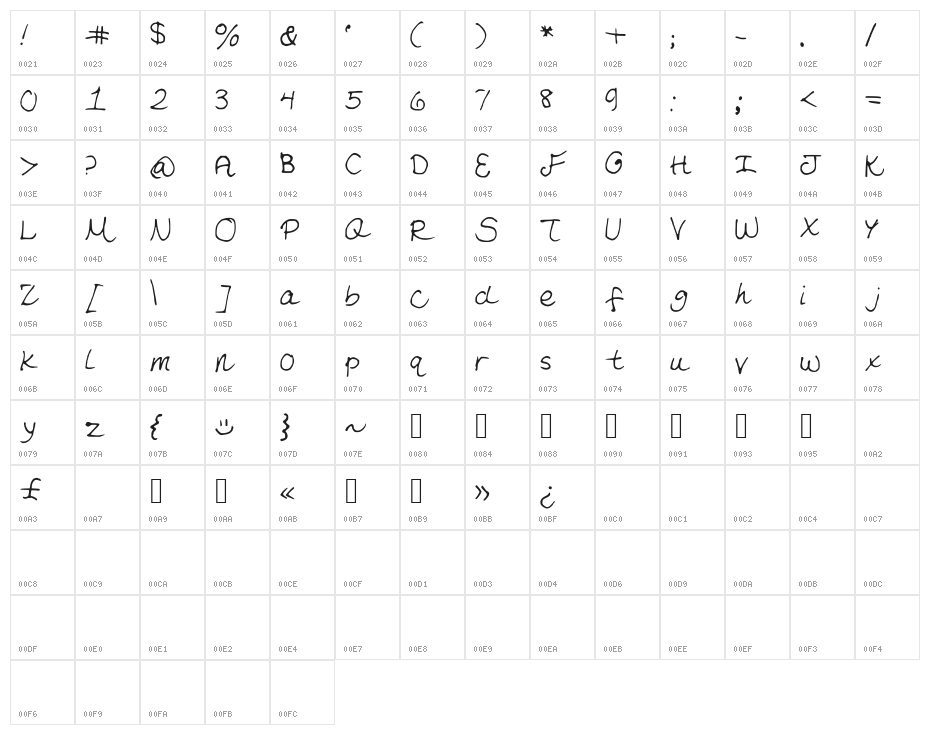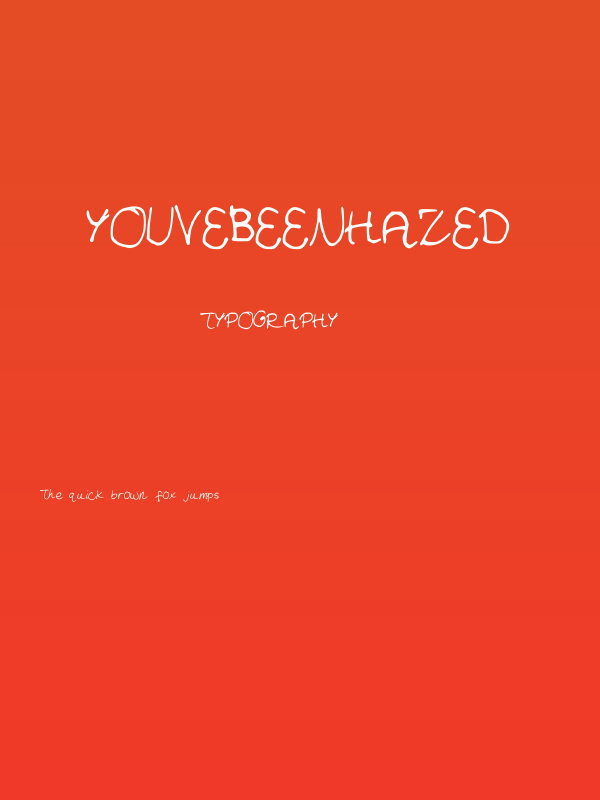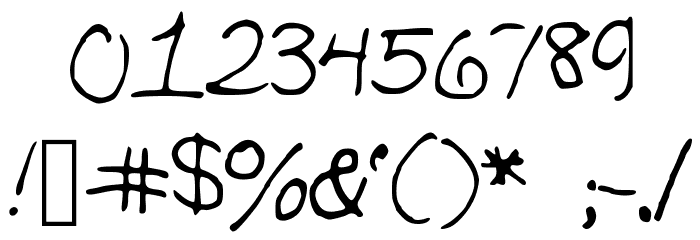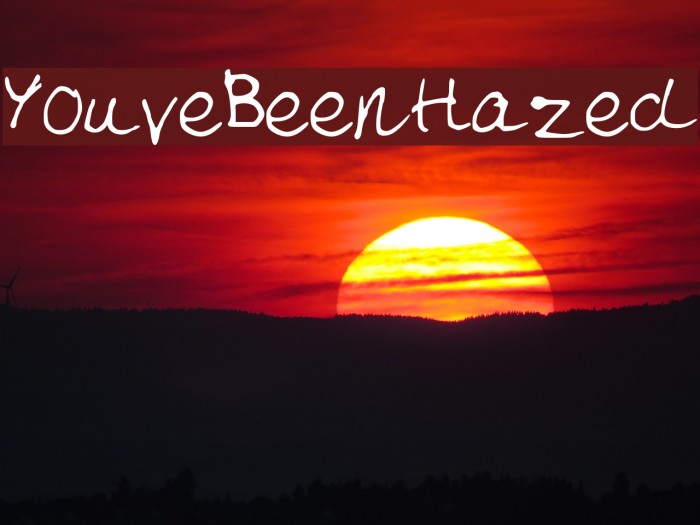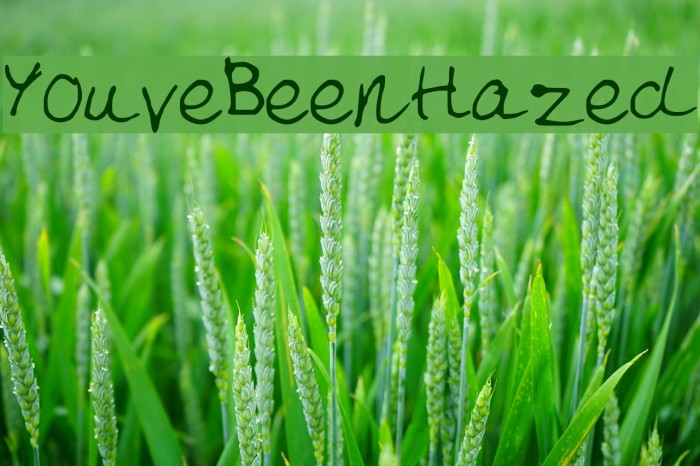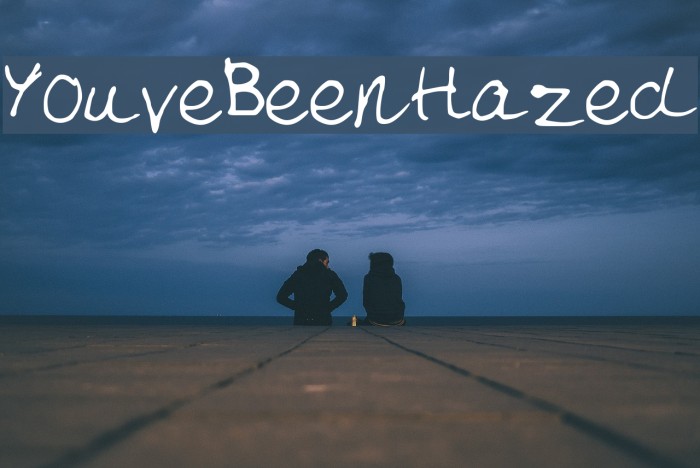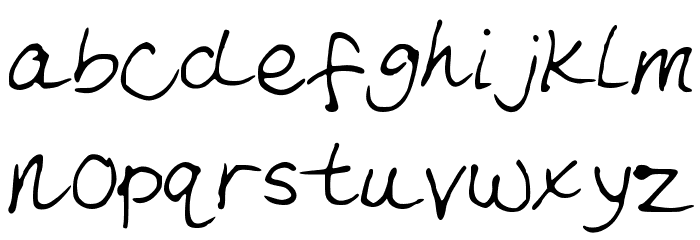
YouveBeenHazed Font
YouveBeenHazed Description
This font features a playful and casual handwritten style, characterized by its fluid and slightly irregular strokes. The uppercase letters are bold and expressive, while the lowercase letters maintain a consistent flow, giving it a natural and personal touch. The numbers and special characters are crafted with the same whimsical flair, making them stand out with their unique shapes. The overall appearance is informal and friendly, suitable for projects that require a personal or creative touch. The font's design is versatile, making it ideal for a variety of applications where a handwritten aesthetic is desired.